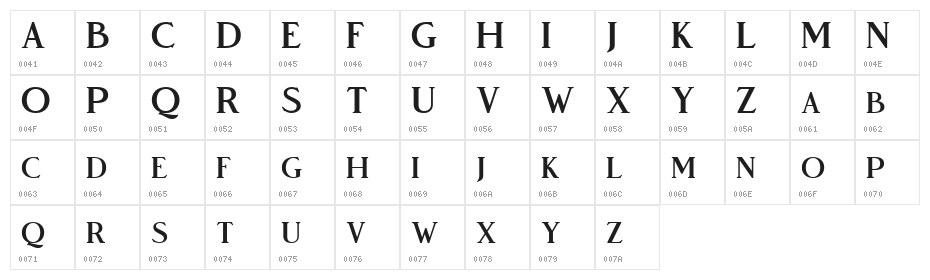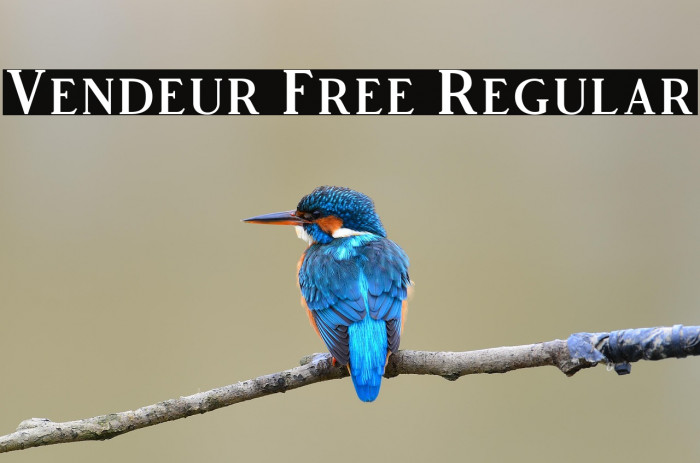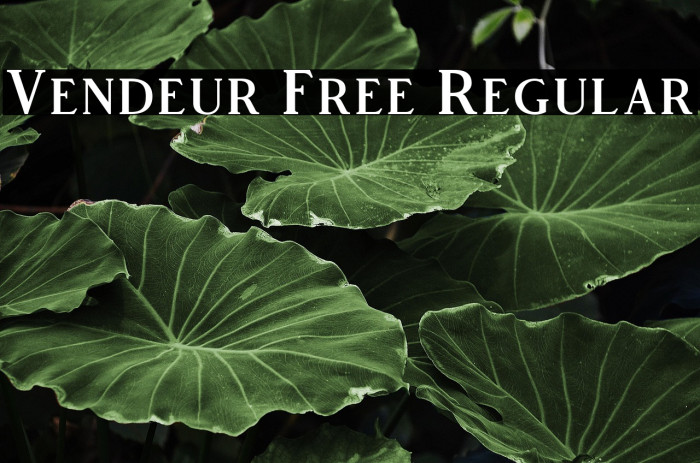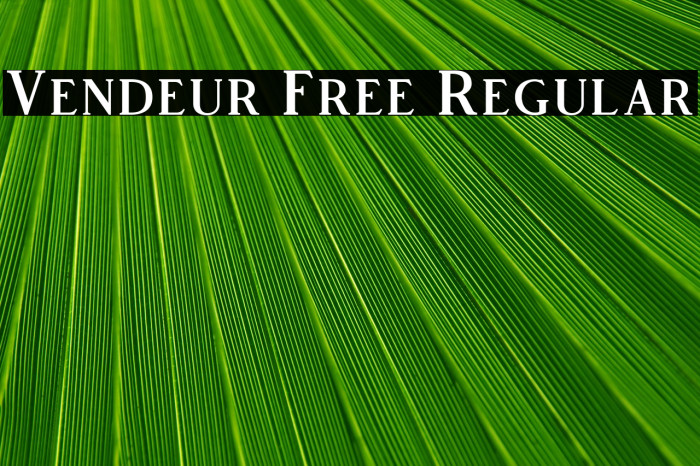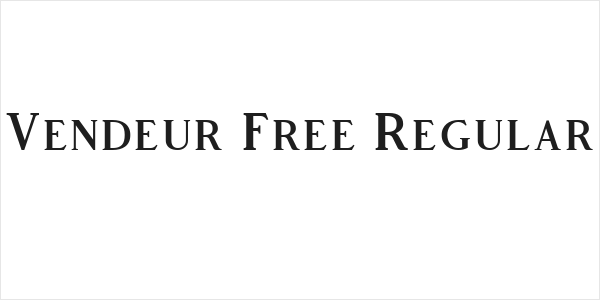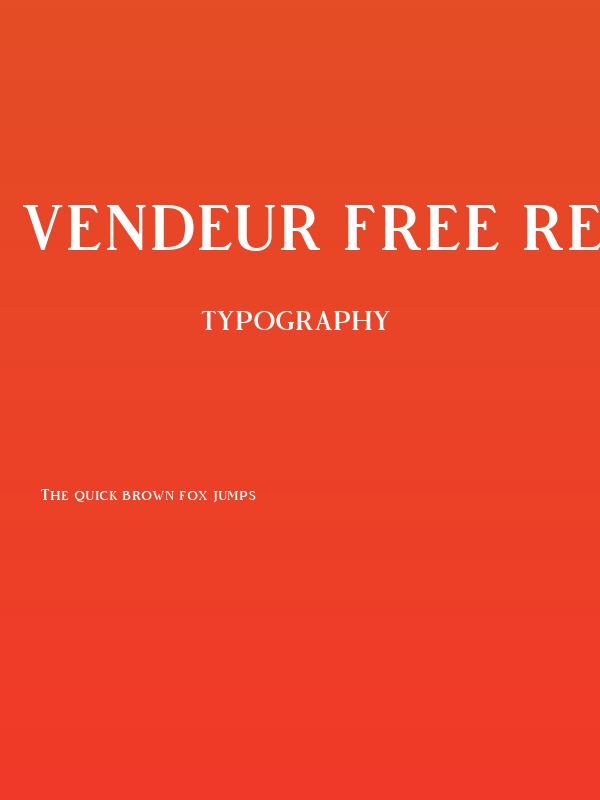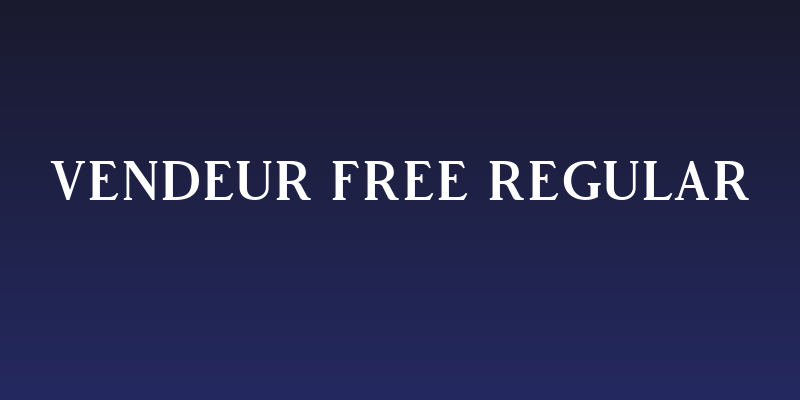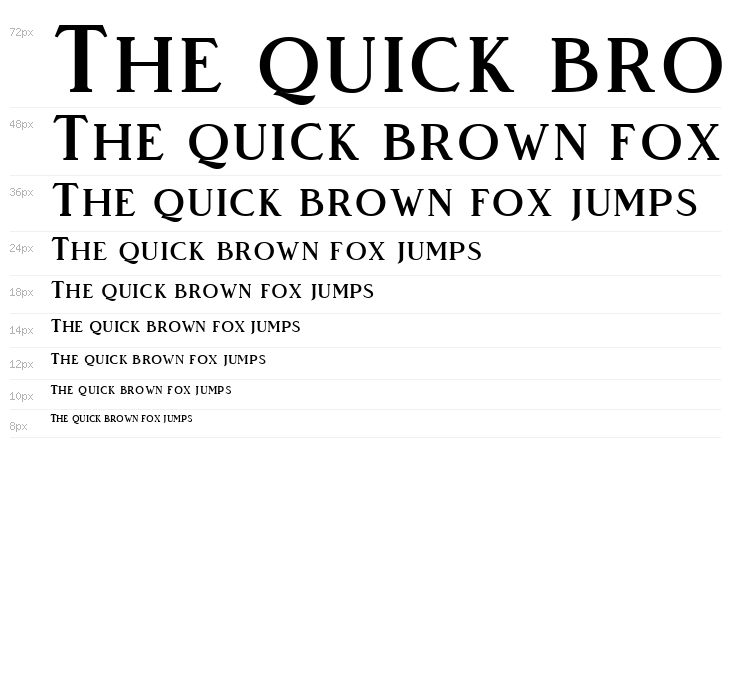
Vendeur Free Regular Font
Vendeur Free Regular Description
This font features a classic serif style with elegant, sharp serifs that give it a sophisticated and timeless appearance. The characters are well-proportioned, with a moderate contrast between thick and thin strokes, enhancing readability while maintaining a refined aesthetic. The uppercase letters exhibit a strong presence, making them suitable for headlines and titles. The lowercase letters complement the uppercase with a balanced design, ensuring consistency across different text sizes. This font's overall style is reminiscent of traditional typefaces, yet it maintains a modern touch, making it versatile for various design applications.